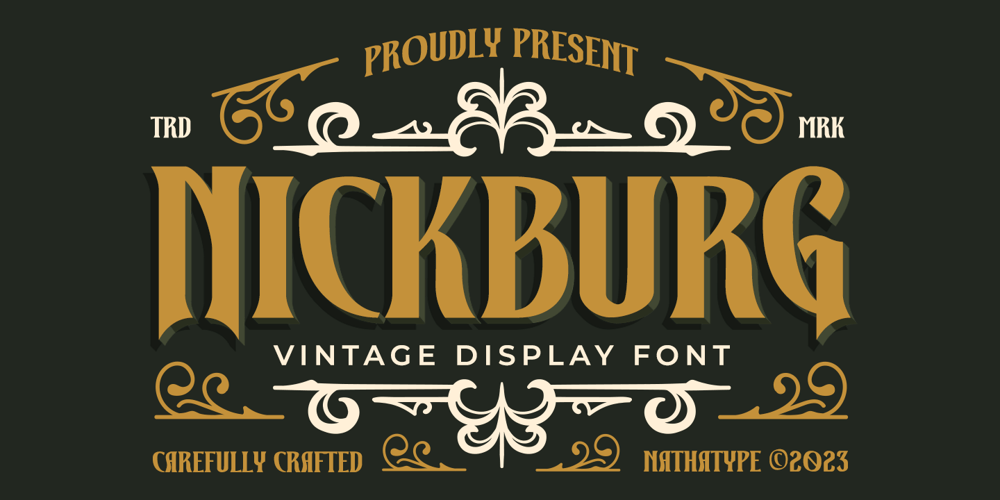
Nickburg Font Family was designed by Donis Miftahudin and published by Nathatype. Nickburg contains 1 styles and family package options. Nickburg is a display font that exudes timeless charm. The oversized uppercase letters of this font are impossible to ignore. Each character of this font commands attention with its substantial size. What sets Nickburg apart is its sharp corners. The unique combination of vintage and sharpness creates a captivating contrast that elevates your text and makes it unforgettable. This font includes ornaments as a special bonus. Nickburg fits in headlines, logos, branding materials, and many more.